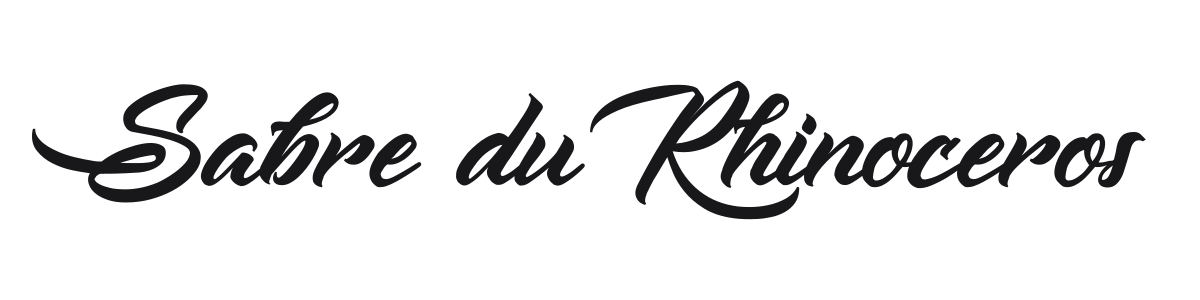
Sabre du Rhinoceros
Sabre du Rhinoceros is a bold brush typeface from Thomas Boucherie at Octotype, with thick, sweeping strokes that carry real forward momentum thanks to its italic lean. The letterforms feel fast and physical, like they were laid down in a single confident pass with a wide brush. Built for headlines, posters, and expressive display work where you want type that feels charged and unapologetically loud.